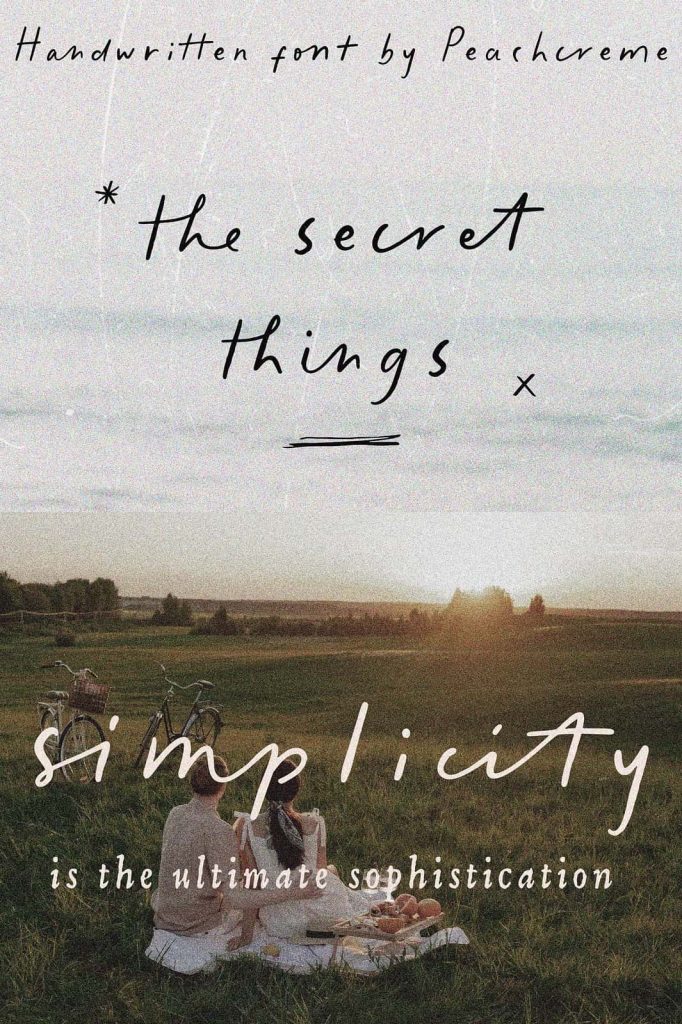
The Secret Things is a fresh and inviting script font that captures the effortless beauty of natural handwriting. Designed to bring warmth and authenticity to your creative work, this typeface blends casual elegance with organic flow. Relaxed yet refined, The Secret Things adds a personal touch to every project, making it perfect for invitations, logos, packaging, and digital designs.
A Handcrafted Script with Natural Flair
Every curve and stroke in The Secret Things was crafted to feel genuine and fluid. The letterforms are slightly irregular, just like true handwriting, giving your text a spontaneous and approachable look. This organic quality sets it apart from overly polished scripts, making it ideal for designs that call for personality and charm. Whether used in short phrases or full sentences, The Secret Things maintains legibility while infusing character into every word.
Inspired by modern calligraphy and natural pen movements, The Secret Things delivers smooth connections and graceful transitions between letters. Its flowing rhythm gives each design a sense of movement and energy, while the subtle variations in thickness add visual interest and depth. This combination of artistry and usability makes it a favorite choice for designers seeking balance between sophistication and playfulness.
Versatile for Every Creative Purpose
The Secret Things script font adapts effortlessly to a wide variety of design projects. Use it to craft elegant wedding invitations, friendly branding materials, or expressive social media graphics. Its relaxed style pairs beautifully with minimalist layouts, vintage textures, and modern compositions alike. Whether you’re working on digital content or print media, The Secret Things provides endless creative flexibility.
Pair it with sans-serif fonts for a contemporary balance, or match it with serif typefaces to create classic visual harmony. The Secret Things stands out as a focal point in logos and titles, yet remains refined enough for supporting text or taglines. Its versatility ensures that every design feels cohesive, stylish, and emotionally resonant.
Designed for Effortless Elegance
The Secret Things doesn’t just look beautiful—it feels natural to use. Its smooth letter spacing and organic curves make it ideal for both professional designers and creative enthusiasts. The font flows gracefully across your canvas, whether you’re working in Adobe Illustrator, Photoshop, or your favorite design software. Its character set includes elegant swashes and alternate characters, offering even more ways to customize and enhance your typography.
From greeting cards to business branding, The Secret Things elevates your work with its combination of artistry and simplicity. Each stroke embodies relaxed confidence, making your message feel genuine and heartfelt. The result is a script font that connects emotionally with viewers while maintaining a timeless, professional look.
Bring Your Words to Life
If your design needs warmth, authenticity, and personality, The Secret Things is your perfect choice. It breathes life into words, transforming simple text into a beautiful visual statement. The font’s natural rhythm and graceful style make it ideal for projects that aim to inspire, comfort, or delight.
Use The Secret Things to express your creativity across branding, packaging, digital marketing, or handcrafted products. It’s the kind of font that doesn’t just decorate your design—it defines its mood and character. With The Secret Things, your typography will feel personal, elegant, and effortlessly inviting.
The Secret Things is more than a font—it’s an experience. It captures the beauty of imperfection, the rhythm of natural handwriting, and the sincerity of personal expression. Whether you’re designing a brand identity or crafting a heartfelt message, The Secret Things script font helps your work stand out with grace and charm. Bring warmth, style, and authenticity to your designs—discover the secret behind The Secret Things today.